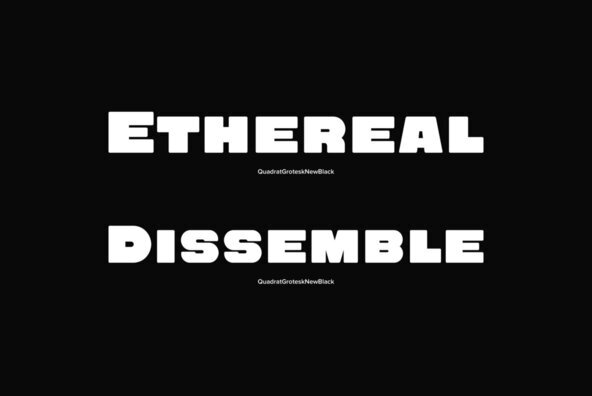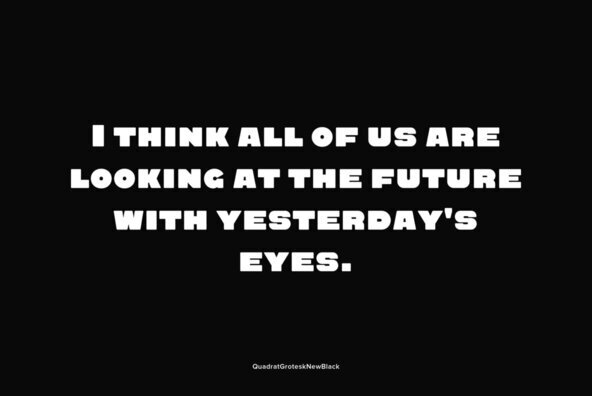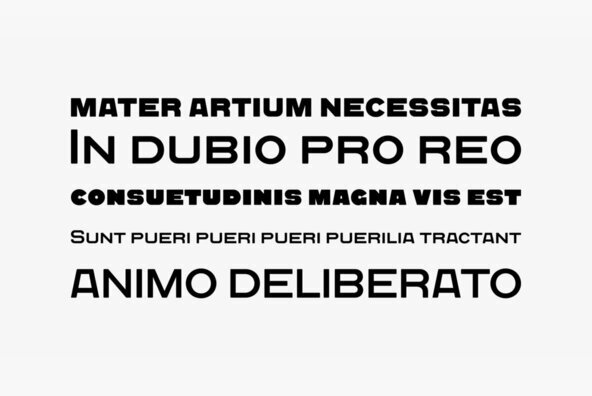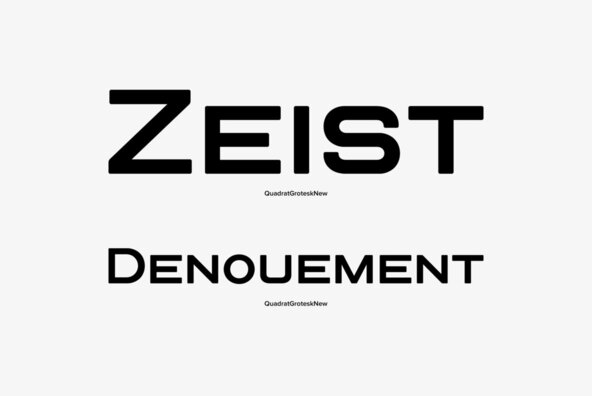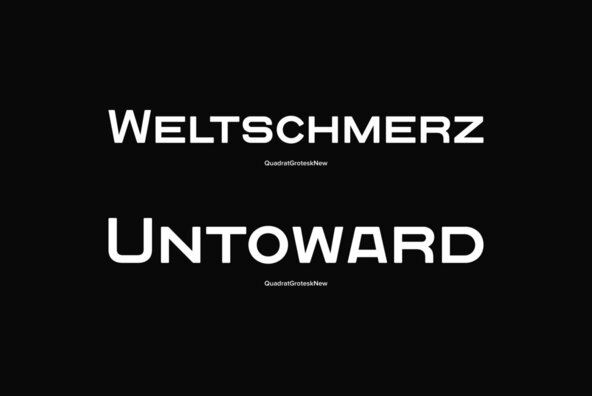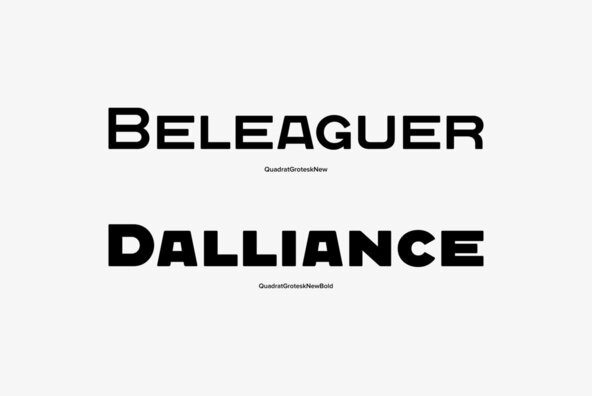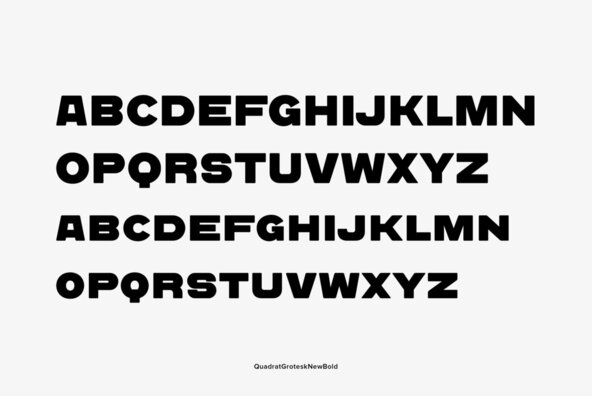
Quadrat Grotesk New
Designed for ParaType in 2004 by Vladimir Pavlikov. It is a new version of popular type Quadrat Grotesk by the same author. Letters of the new version in contradistinction to the old one are clean and have no traces of exploitation. Quardat Grotesk New due to its rectangular proportions is extremely readable in small sizes and can be successfully used in Web pages and in documents with long lists where critical aspect is a number of lines rather then length of a line.